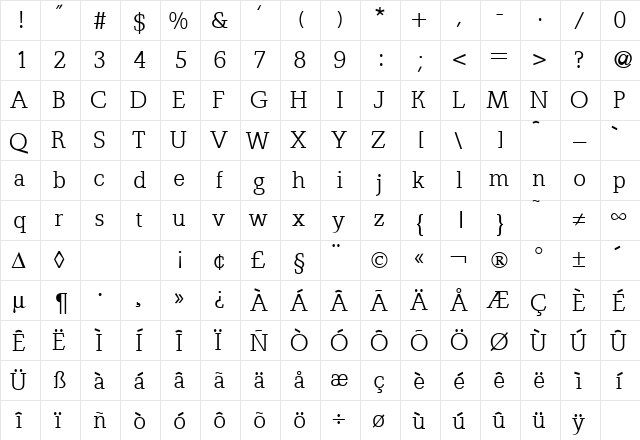
Osmium Regular
Design Context for Osmium Typeface
Osmium offers clean, dependable letterforms without strong stylistic allegiance, making it a practical choice for designers who need flexibility.